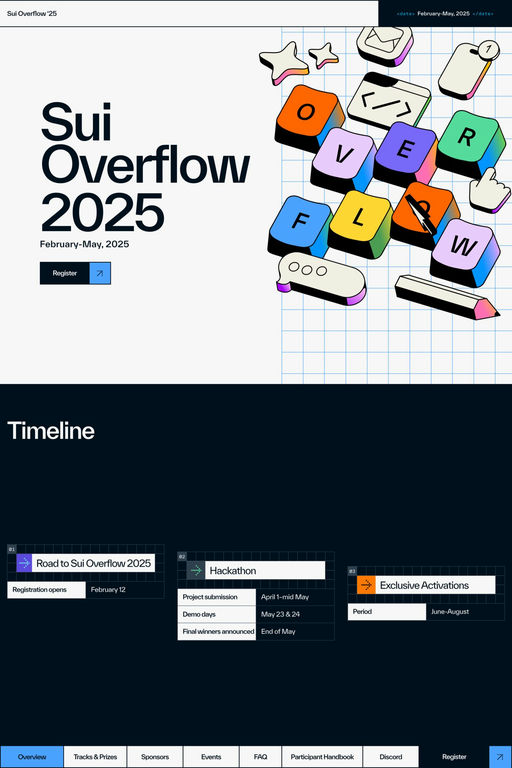
TWK Everett is a sans-serif typeface from WELTKERN®.
Everett emerged during Nolan Paparelli’s studies at ECAL/University of Art & Design Lausanne, resulting in his diploma work, and has been evolving ever since.
A1 features 2 websites using TWK Everett, including Sui and Sui Overflow 2025. They lean towards Animated, Lines, and Blurred gradients design styles, and they’re most often built with Webflow.